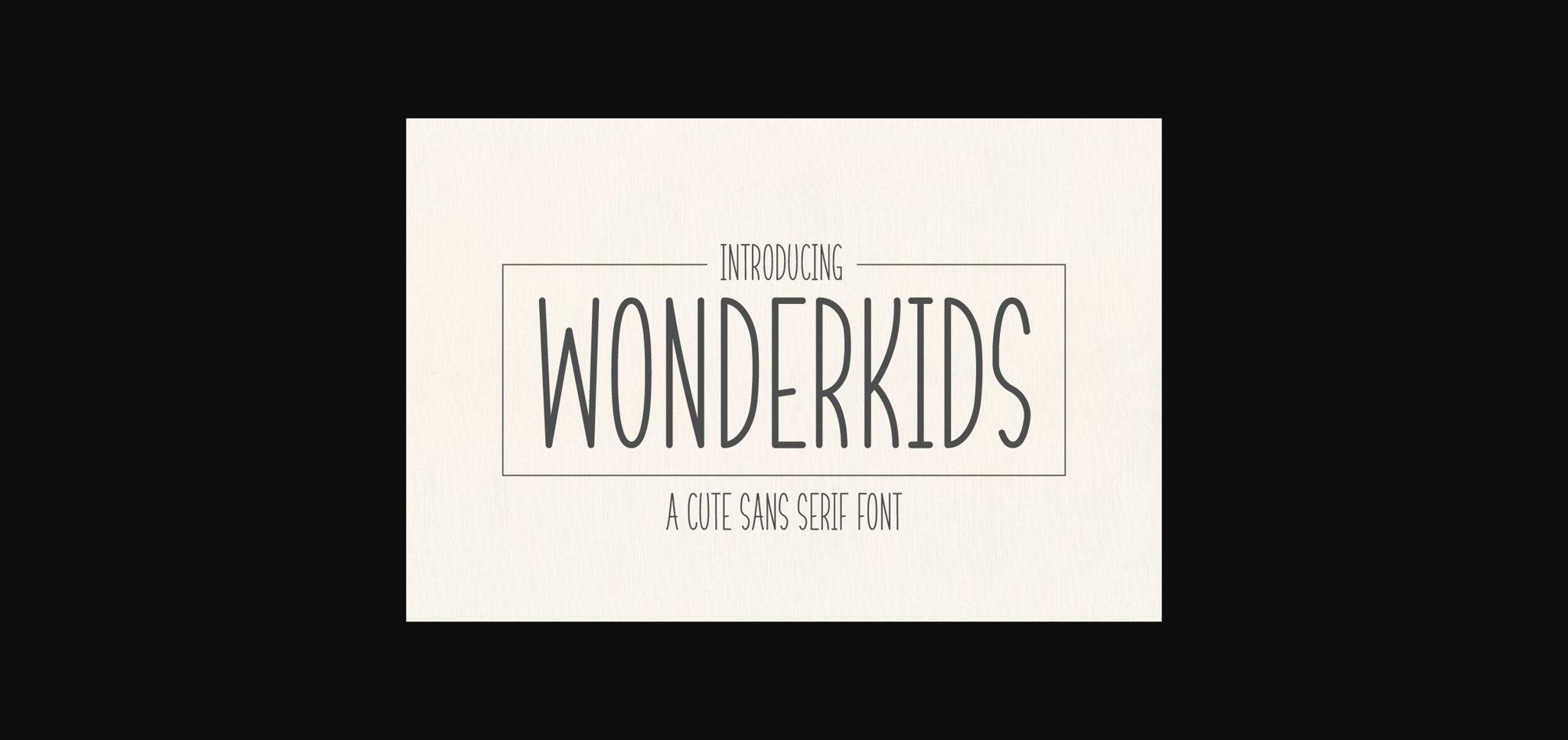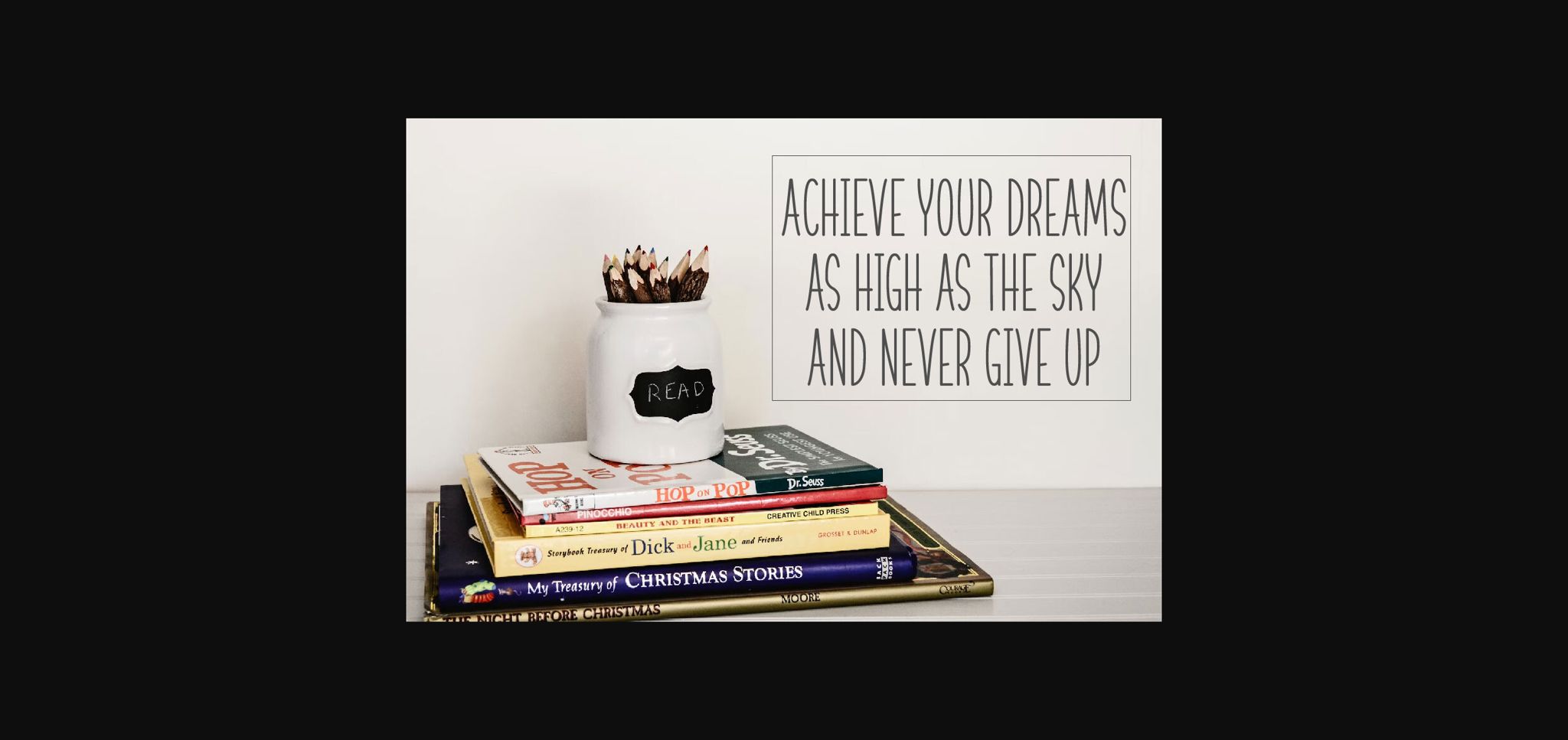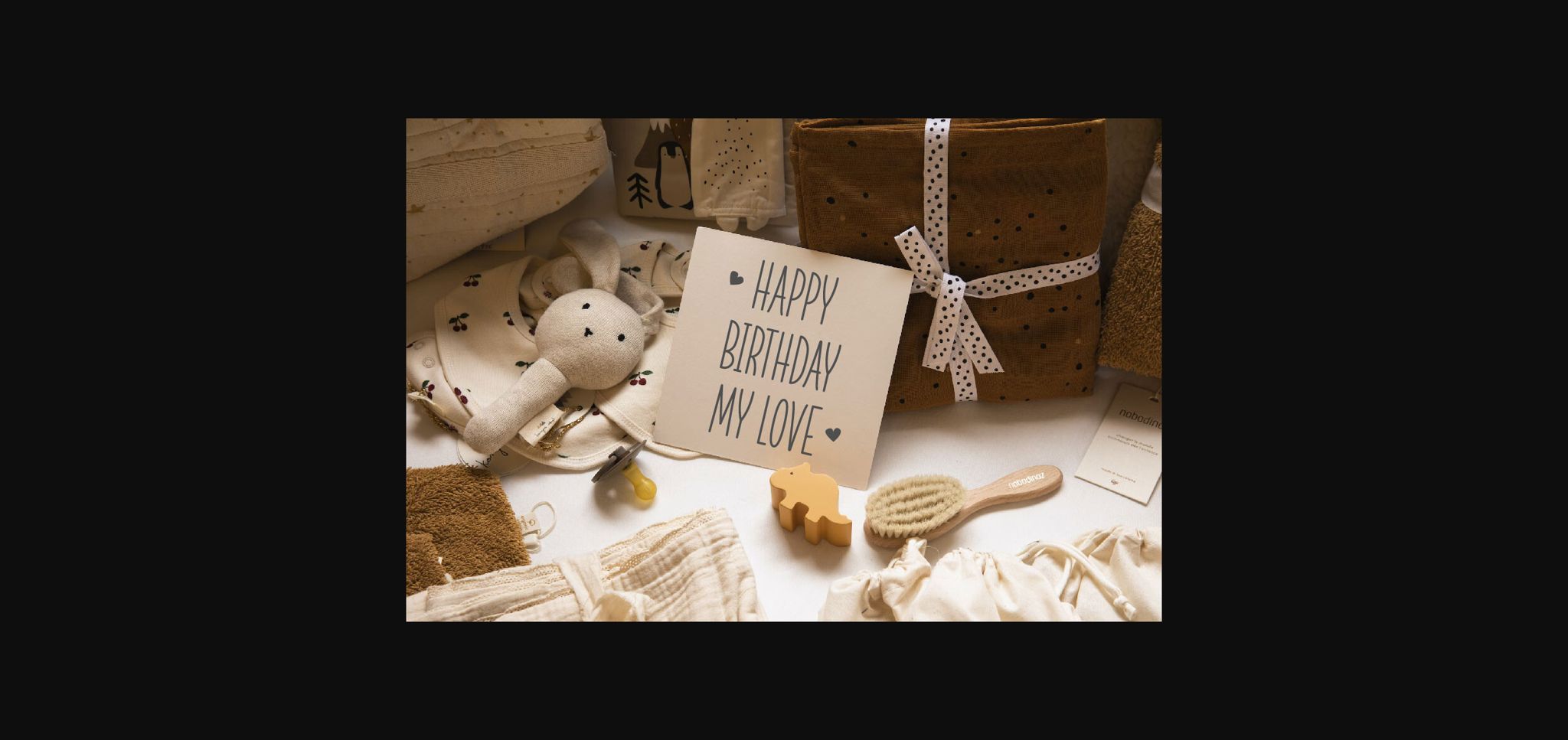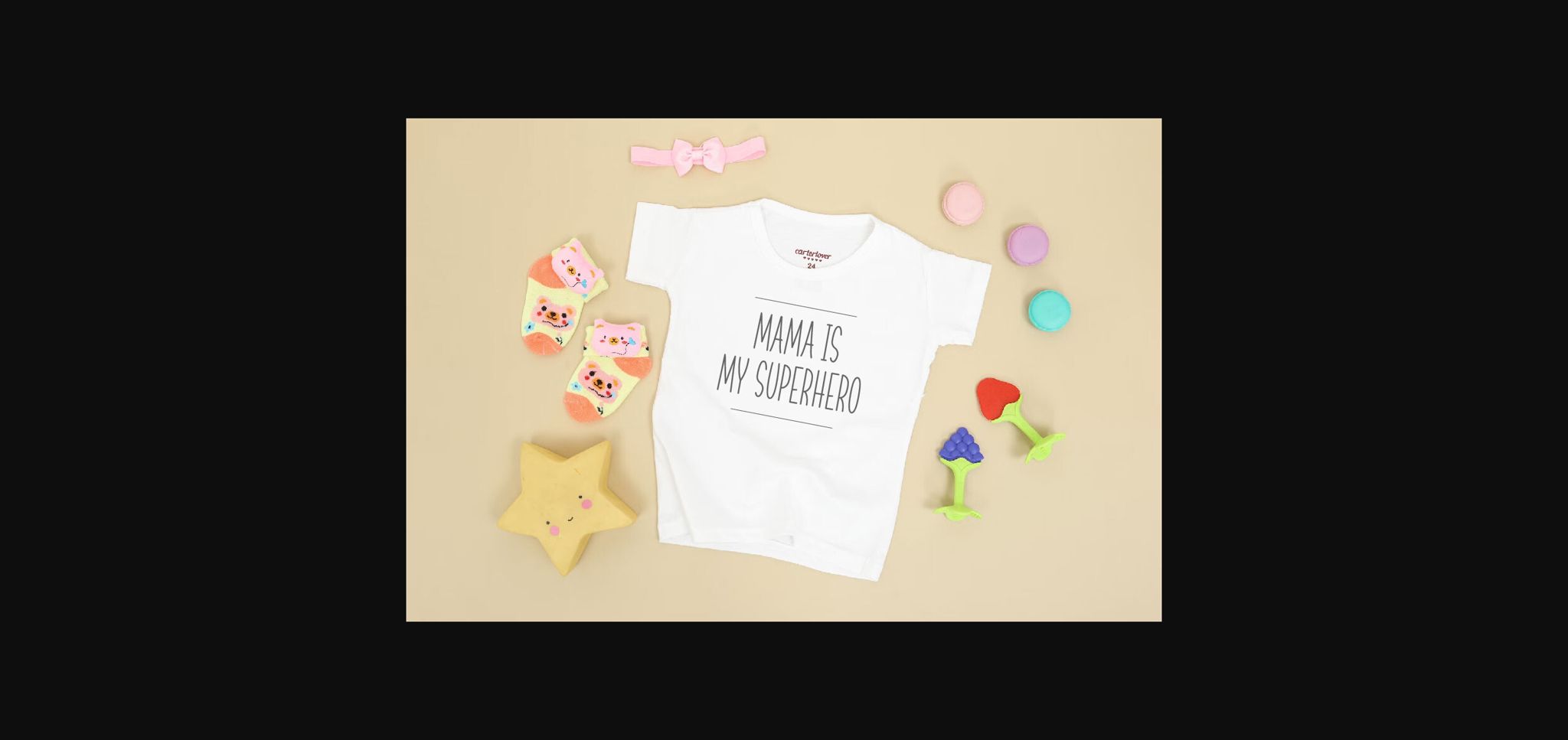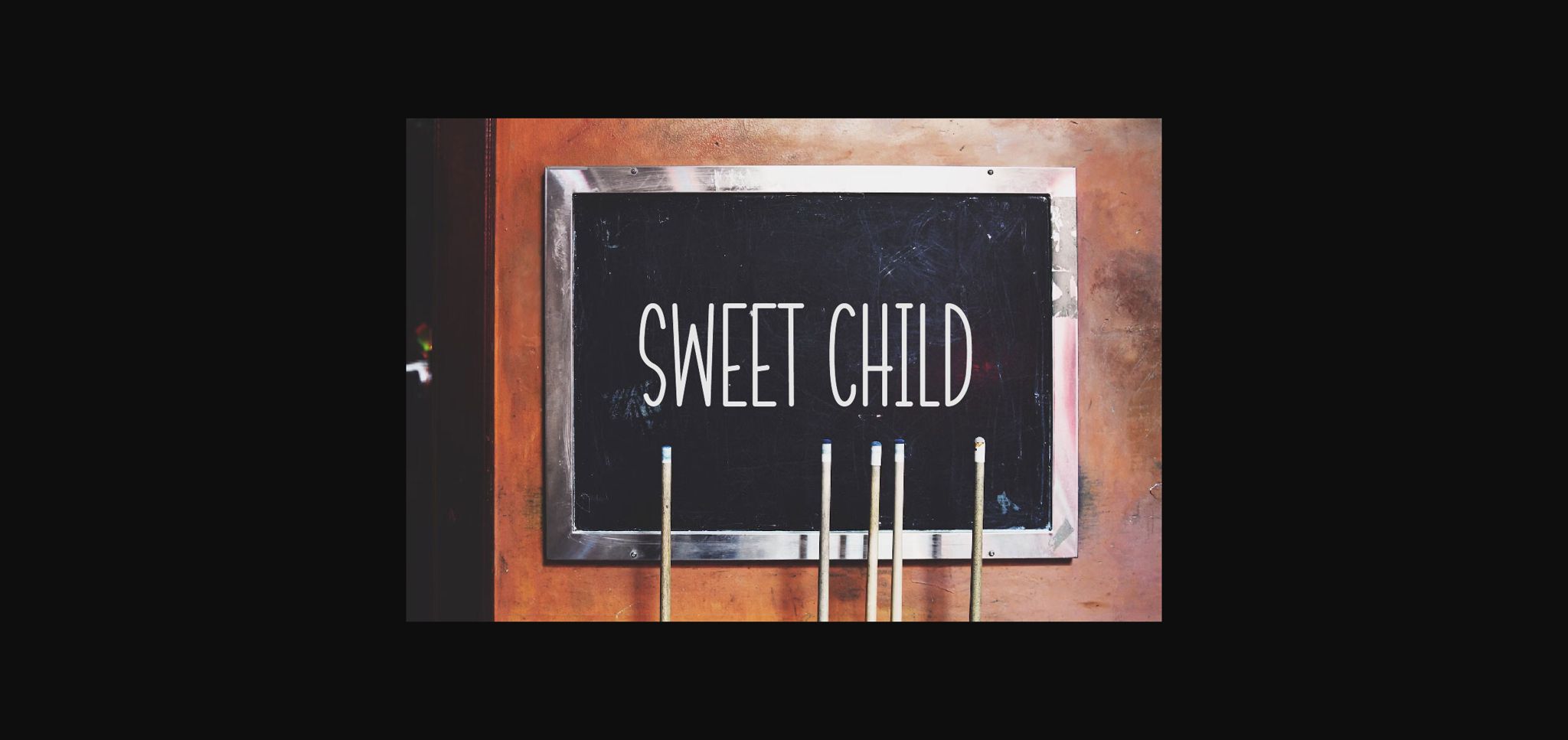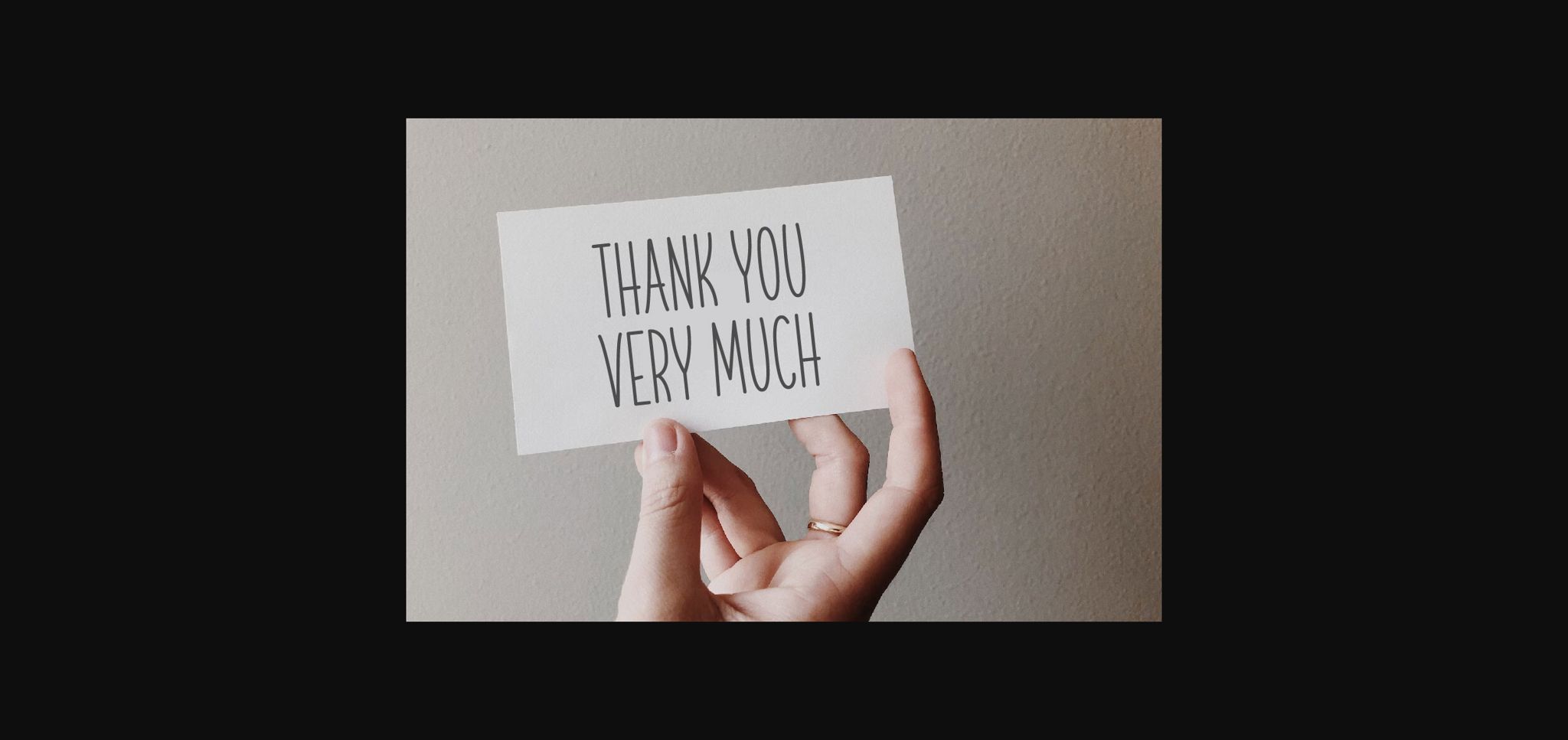
HomeSans Serif FontsWonderkids Font Sans Serif Fonts Wonderkids Font FacebookXPinterestWhatsApp 1 of 8 ... Wonderkids Font Poster 2... Wonderkids Font Poster 3... Wonderkids Font Poster 4... Wonderkids Font Poster 5... Wonderkids Font Poster 6... Wonderkids Font Poster 7... Wonderkids Font Poster 8... About Wonderkids Font Wonderkids is a cute and minimalist sans serif font. This font is perfect for greeting cards, wedding invitations, gift labels, mugs, t-shirts, quotes, labels, etc. Use it to create spectacular and interesting designs! DOWNLOAD NOW People also explored Sogestina Orleymore Font Julians Signature Font Bestwep Font Bye Bye Honey Font Amanda Font Gelato Font Mansfield Script Font Tropical Cacao Font 353 0 TagsWonderkids Font Previous articleFebruary FontNext articleHippy Holidays Font LEAVE A REPLY Cancel reply Comment: Please enter your comment! Name:* Please enter your name here Email:* You have entered an incorrect email address! Please enter your email address here Website: Save my name, email, and website in this browser for the next time I comment. Personal Use Free 1313 Mockingbird Lane Personal Use Free Read more about this font Mellow Personal Use Free Read more about this font Lynoselt Personal Use Free Read more about this font Coconote Personal Use Free Read more about this font BLOG 5 Fonts That Will Dominate Design Trends in 2026 5 Fonts for 2026 That Will Dominate Design Trends Typography plays a critical role in visual communication, and as we look ahead to 2026, it’s... Using Fonts in Digital Marketing: Tips to Strengthen Your Brand Identity Modern Sans-Serif Fonts That Brands Love in 2025 Best Fonts for T-Shirt Design – Top 2025 Picks